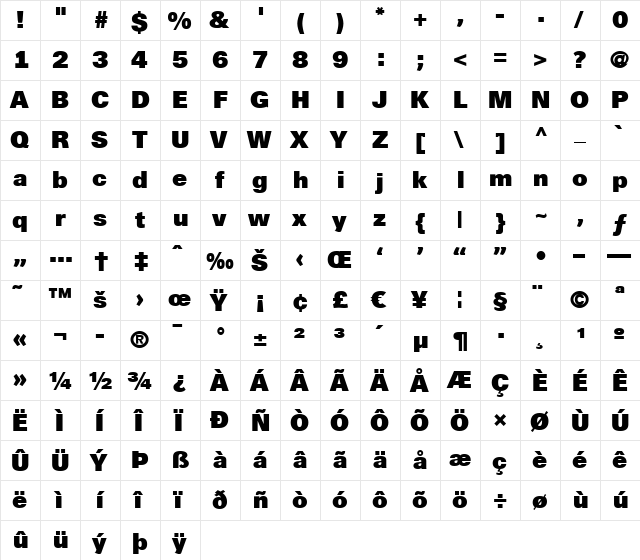
a_ReportSansBck Regular
| Designer | W.Chufarofsky & M.Slutsker |
Design Context for a_ReportSansBck Typeface
a_ReportSansBck is a composed and adaptable typeface that performs quietly and consistently across a wide range of design contexts.